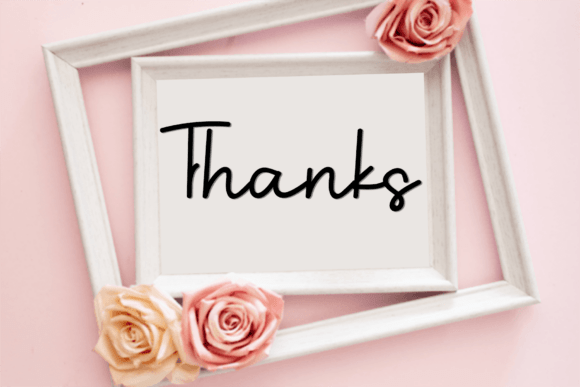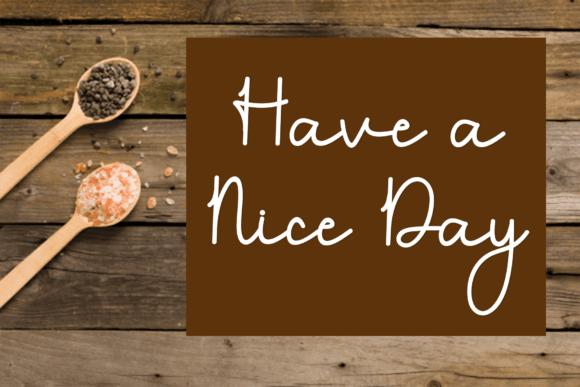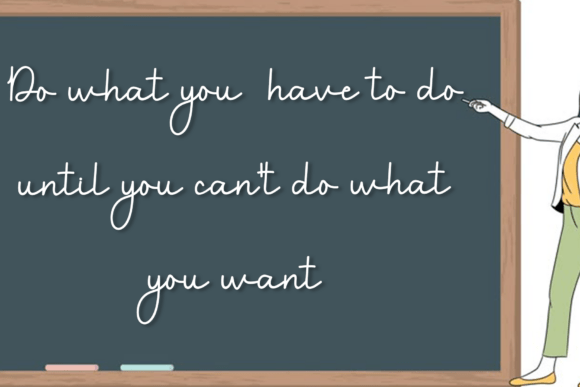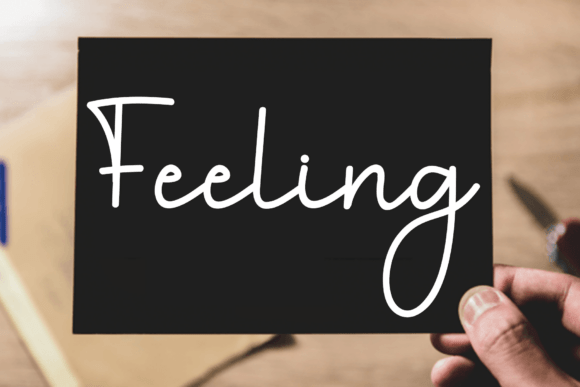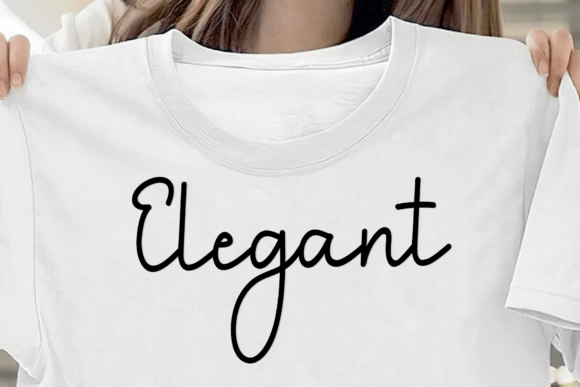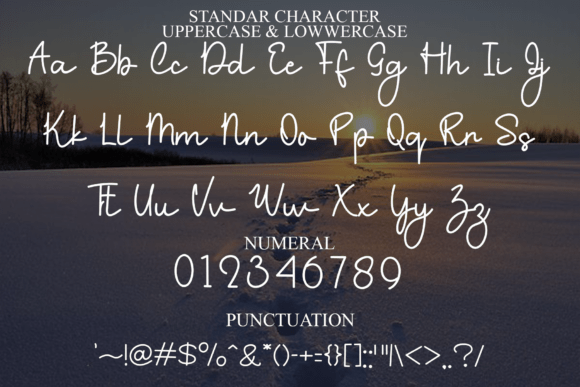
The Bird House Font: A Warm and Playful Addition to Your Design Toolbox
Have you ever been working on a design project, and suddenly, you’re stuck on finding the perfect font? I recall a recent experience where I was designing a set of invitations for a friend’s garden party. I wanted a font that was casual, yet charming, and would evoke a sense of warmth and friendliness. That’s when I stumbled upon the Bird House font. In this article, we’ll dive into the world of Bird House, exploring its features, how to use it, and what makes it a great addition to your design toolbox.
A Personal Design Moment: Finding the Perfect Font
I was browsing through my font library, and suddenly, I came across Bird House. Its round, playful strokes immediately caught my attention. I knew I had to give it a try. I downloaded the font and started experimenting with it. The result was amazing! The font added a unique touch to my design, making it stand out in a crowded digital landscape.
An Honest Review of Bird House Font
• ✨ The font’s casual and creative vibe makes it perfect for personal projects, invitations, and social media graphics.
• ✅ The hand-drawn aesthetic adds a fun and unique touch to any design.
⚠️ One thing to note is that the font might not be suitable for formal or professional projects, as it has a more relaxed and playful feel. 🤔 Additionally, some users might find the font a bit limited in terms of variations, but this can be overcome by experimenting with different OpenType features and glyphs.
The Backstory of Bird House Font
The Bird House font was designed with the intention of creating a warm and inviting typeface that would evoke feelings of comfort and friendliness. The designer aimed to craft a font that would be perfect for personal projects, invitations, and social media graphics. With its hand-drawn aesthetic and playful strokes, Bird House has become a popular choice among designers and crafters.
Font Name Bird House Font
Author K_IN Studio
Q: What is the Bird House font best suited for?
A: Bird House is perfect for personal projects, invitations, social media graphics, and any design that requires a casual and creative touch.